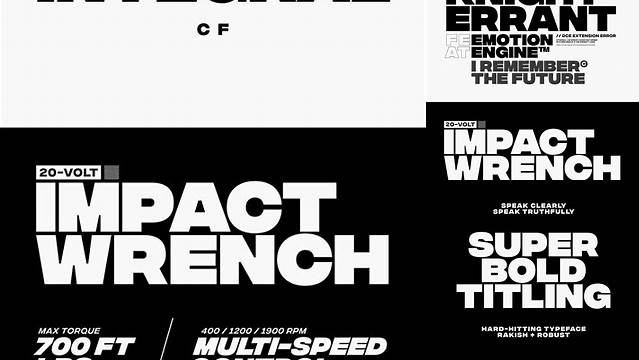
Integral CF Font Free: Download & Usage Guide
What is Integral CF?
Integral CF font is a modern, geometric sans-serif typeface that exudes sophistication and clarity. Designed with clean lines and a contemporary aesthetic, it's perfect for a wide range of applications, from branding and web design to print materials and beyond. Its versatility stems from its balanced letterforms, which lend themselves well to both headlines and body text. The font's creator, Connary Fagen, has masterfully crafted a typeface that is both visually appealing and highly legible, a combination that's crucial for effective communication. One of the key characteristics of Integral CF is its strong geometric foundation. The letterforms are constructed using precise angles and curves, giving the font a sense of order and structure. This geometric quality makes it ideal for projects that require a modern, technical, or corporate feel. Think tech startups, design agencies, or even financial institutions – Integral CF fits the bill perfectly. But don't let its geometric nature fool you; Integral CF also possesses a certain warmth and approachability. The slightly rounded corners and subtle variations in stroke weight prevent it from feeling too sterile or clinical. This balance between structure and personality is what makes Integral CF such a versatile typeface, capable of adapting to a wide range of design styles. Whether you're aiming for a sleek and minimalist look or something a bit more playful and creative, Integral CF can help you achieve your vision. The font family typically includes a range of weights, from light to bold, allowing for even greater flexibility in your designs. This means you can use Integral CF for headlines, subheadings, body text, and everything in between, creating a cohesive and visually appealing typographic hierarchy. The different weights provide visual contrast and help to guide the reader's eye through the content, making it easier to digest and understand. Beyond its aesthetic qualities, Integral CF is also designed with readability in mind. The letterforms are carefully spaced and proportioned, ensuring that text remains legible even at smaller sizes. This is particularly important for body text, where readability is paramount. A font that looks beautiful but is difficult to read is ultimately ineffective, so Integral CF's focus on legibility is a major advantage. In conclusion, Integral CF is a modern geometric sans-serif typeface that combines sophistication, clarity, and versatility. Its clean lines, balanced letterforms, and range of weights make it a powerful tool for designers looking to create impactful and visually appealing designs. Whether you're working on a branding project, a website, or a print publication, Integral CF is definitely worth considering.
Key Features of Integral CF
When you're diving into the world of fonts, you quickly realize that not all typefaces are created equal. Some boast a unique flair, others prioritize readability, and the truly exceptional ones manage to blend both seamlessly. Integral CF definitely falls into the latter category. Let's break down the key features that make this font a standout choice for designers and creatives alike. First and foremost, the geometric structure of Integral CF is a defining characteristic. This isn't your average rounded sans-serif; the letterforms are built upon clean, precise shapes, giving the font a modern and almost architectural feel. Think of the Golden Ratio in typography – that's the level of intentionality we're talking about. This geometric foundation contributes to the font's overall clarity and makes it incredibly versatile for a variety of design applications. You'll find it equally at home in a sleek website header as you would in a corporate report. The clean lines are another crucial aspect of Integral CF's appeal. There's no unnecessary ornamentation or fussy details here. Each character is stripped down to its essential form, resulting in a typeface that's both elegant and highly legible. This simplicity is a major asset, especially in the digital realm where screen resolutions can sometimes play tricks on more intricate fonts. Integral CF's clean lines ensure that your message comes across loud and clear, regardless of the display. But don't mistake simplicity for blandness. Integral CF possesses a subtle sophistication that elevates it beyond the ordinary. The carefully considered proportions and the slight variations in stroke weight add a touch of personality without sacrificing the font's overall clarity. It's this balance that makes Integral CF so adaptable to different design styles. A range of weights is another essential feature for any versatile typeface, and Integral CF doesn't disappoint. From light and airy to bold and impactful, the font family typically includes multiple weights, allowing you to create a clear visual hierarchy within your designs. This is crucial for guiding the reader's eye and ensuring that your message is communicated effectively. Use the lighter weights for body text to maintain readability and the bolder weights for headings and subheadings to grab attention. The thoughtful inclusion of various weights is a testament to the designer's understanding of typography's role in visual communication. Legibility is the name of the game when it comes to typography, and Integral CF excels in this area. The letterforms are carefully spaced and proportioned, ensuring that the text remains easy to read even at smaller sizes. This is particularly important for body text, where a font's legibility can make or break the reading experience. Imagine trying to wade through a dense paragraph of text in a font that's cramped and confusing – it's a recipe for frustration. Integral CF's focus on legibility means that your audience can focus on your message, not on deciphering the typeface. The modern aesthetic of Integral CF also can't be overstated. It's a font that feels firmly rooted in the 21st century, with a contemporary vibe that's perfect for brands and projects that want to project a forward-thinking image. This doesn't mean it's trendy or fleeting; rather, it possesses a timeless quality that will ensure its relevance for years to come. The font manages to be both current and classic, a rare and valuable combination. In conclusion, Integral CF's key features – its geometric structure, clean lines, range of weights, legibility, and modern aesthetic – combine to create a typeface that's both beautiful and highly functional. It's a font that's well worth adding to your typographic arsenal.
Best Uses for Integral CF
Now that you've got Integral CF installed and ready to roll, let's talk about where this font truly shines. It's a versatile typeface, but like any good tool, it has its sweet spots. Understanding the best uses for Integral CF will help you leverage its strengths and create designs that are both visually appealing and effective. Let's dive into some specific scenarios where Integral CF can really make a difference. First and foremost, branding and logo design are excellent applications for Integral CF. Its clean, geometric aesthetic lends itself well to creating a modern and professional brand identity. The font's strong structure and clarity convey a sense of reliability and trustworthiness, which is crucial for building brand confidence. Whether you're designing a logo for a tech startup, a creative agency, or a corporate entity, Integral CF can help you create a visual identity that stands out from the crowd. The different weights available in the font family allow you to create a visual hierarchy within your logo, emphasizing key elements and ensuring that the brand name is clearly legible. Web design is another area where Integral CF excels. Its clean lines and excellent legibility make it a great choice for both headlines and body text on websites. In the digital realm, readability is paramount, and Integral CF delivers on this front. Its carefully spaced letterforms and balanced proportions ensure that text remains easy to read even on screens of varying sizes and resolutions. Whether you're designing a simple blog or a complex e-commerce website, Integral CF can help you create a user-friendly and visually appealing online experience. The font's modern aesthetic also aligns well with current web design trends, making it a great choice for projects that aim to project a contemporary image. Print materials such as brochures, flyers, and business cards are also excellent candidates for Integral CF. Its versatility and legibility make it suitable for a wide range of print applications. Whether you're creating a marketing brochure, a corporate report, or a set of business cards, Integral CF can help you create a professional and polished look. The font's clean lines and geometric structure ensure that your message is conveyed clearly and effectively. The different weights available in the font family allow you to create a visual hierarchy within your print materials, guiding the reader's eye and emphasizing key information. Editorial design is another area where Integral CF can shine. Its balanced letterforms and excellent readability make it a great choice for magazines, newspapers, and books. Whether you're designing a headline, a subheading, or body text, Integral CF can help you create a visually appealing and engaging reading experience. The font's versatility allows you to use it in a variety of editorial contexts, from serious news articles to lighthearted features. UI/UX design is an increasingly important application for fonts, and Integral CF is well-suited for this purpose. Its clean lines and excellent legibility make it a great choice for user interfaces and user experiences. Whether you're designing a mobile app, a desktop application, or a website interface, Integral CF can help you create a user-friendly and visually appealing experience. The font's geometric structure and modern aesthetic align well with current UI/UX design trends, making it a great choice for projects that aim to project a cutting-edge image. In general, Integral CF is a great choice for projects that require a modern, clean, and professional aesthetic. Its versatility and legibility make it suitable for a wide range of applications, from branding and web design to print materials and UI/UX design. Whether you're aiming for a sleek and minimalist look or something a bit more playful and creative, Integral CF can help you achieve your vision. Its balanced letterforms and range of weights provide you with the flexibility you need to create impactful and visually appealing designs. In conclusion, Integral CF is a versatile typeface that can be used in a variety of design contexts. Its clean lines, geometric structure, excellent legibility, and range of weights make it a valuable addition to any designer's toolkit.